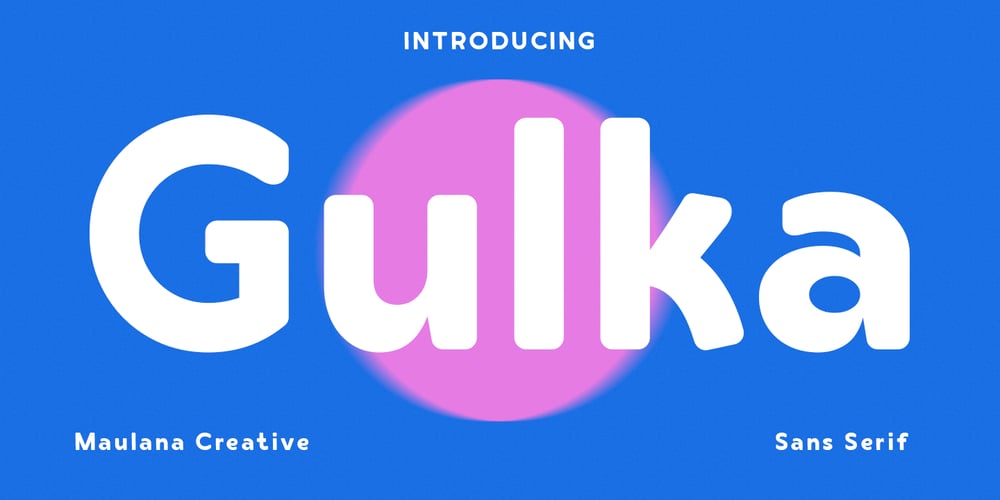
Gulka Font Family was designed by Gilang Maulana and published by Maulana Creative. Gulka contains 1 styles and family package options. Gulka is a contemporary sans serif font. With bold round weight, unique and fun character with a bit of ligatures. To give you an extra creative work. Gulka font support multilingual more than 100+ language. This font is good for logo design, Social media, Movie Titles, Books Titles, a short text even a long text letter and good for your secondary text font with script. Make a stunning work with Gulka font. Cheers, Maulana Creative